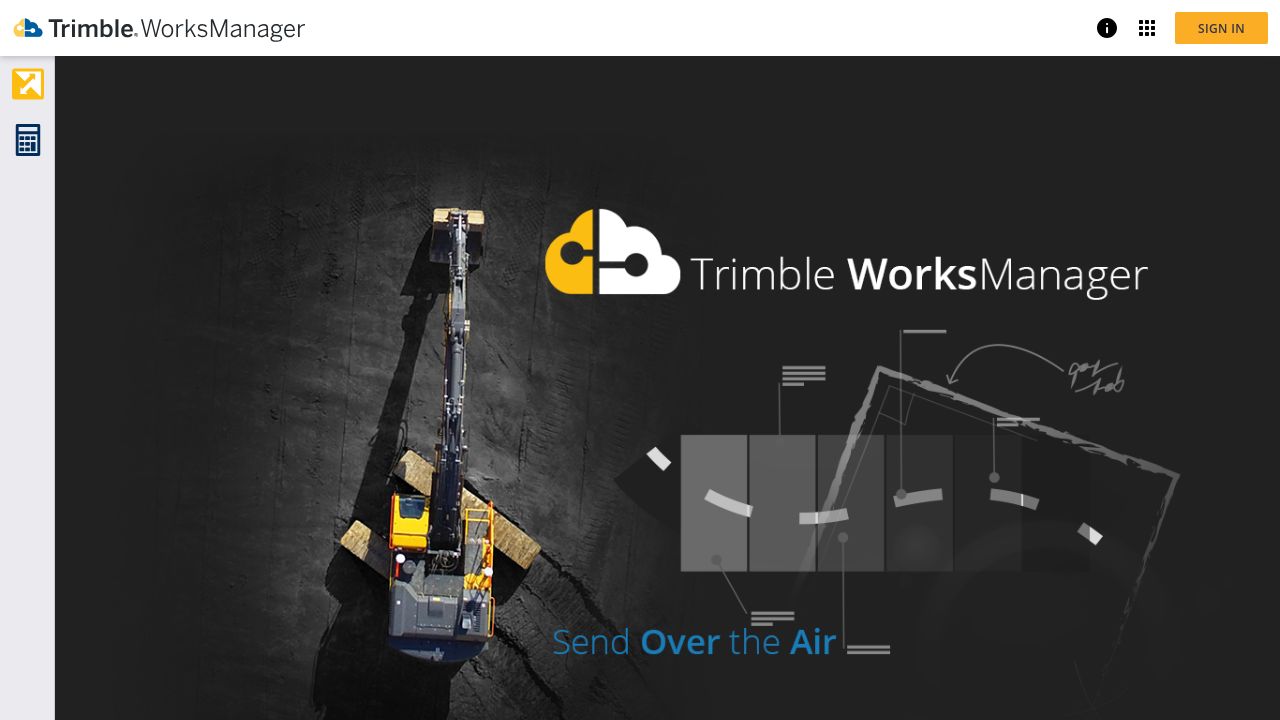
Worksmanager.com uses Open Sans, Roboto, Font Awesome 5 Free and Font Awesome 5 Brands as its main typefaces. Arial, Helvetica, helvetica-neue and SF Mono are declared as fallbacks. 14 fonts detected, last checked Sep 23, 2026.
At worksmanager.com, the choice of typography plays a crucial role in conveying clarity and usability for their audience in the project management sector. The site prominently features Open Sans for its readability and approachable character, while Arial and Helvetica reinforce a sense of familiarity. Roboto and SF Mono add versatility and a modern touch, appealing to tech-savvy users. The inclusion of Font Awesome icons enhances visual communication, making the interface intuitive and engaging.
Worksmanager.com uses Open Sans, Roboto, Font Awesome 5 Free and Font Awesome 5 Brands as its main typefaces. Arial, Helvetica, helvetica-neue and SF Mono are declared as fallbacks. 14 fonts detected, last checked Sep 23, 2026.
Worksmanager.com primarily uses Open Sans, Arial, Helvetica, Roboto, helvetica-neue, and SF Mono. These fonts contribute to the site's clean and functional design.
Open Sans is chosen for its excellent legibility, especially at smaller sizes, compared to Arial and Helvetica, which are more traditional sans-serif options.
On worksmanager.com, Open Sans is used in weight 300, while Arial, Helvetica, Roboto, and SF Mono are all used in weight 400. Font Awesome is included in various styles for icons.
The fallback fonts for worksmanager.com include Segoe UI, Consolas, Monaco, Courier New, and Ubuntu, ensuring a consistent experience across different systems.